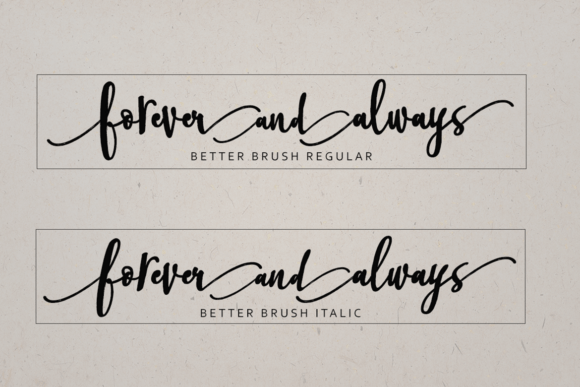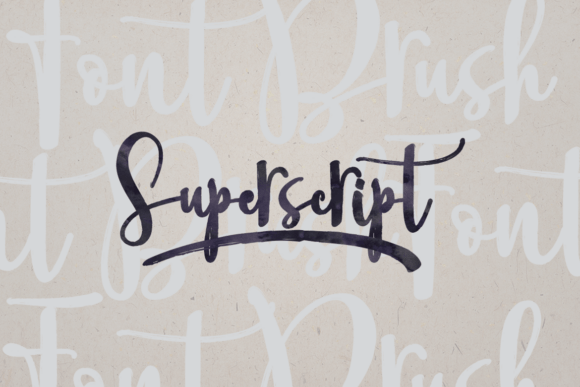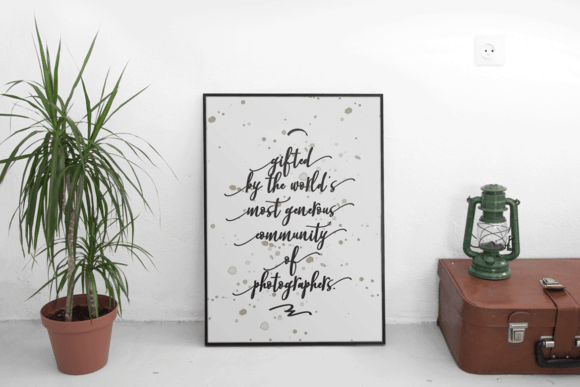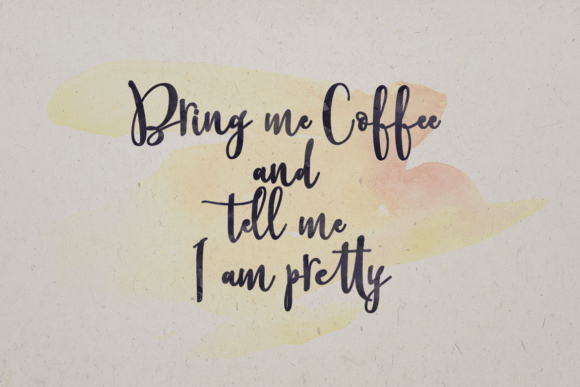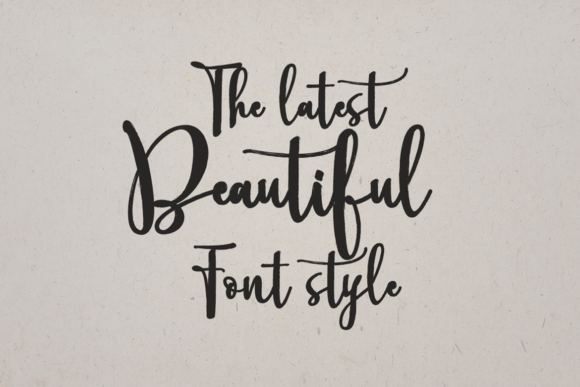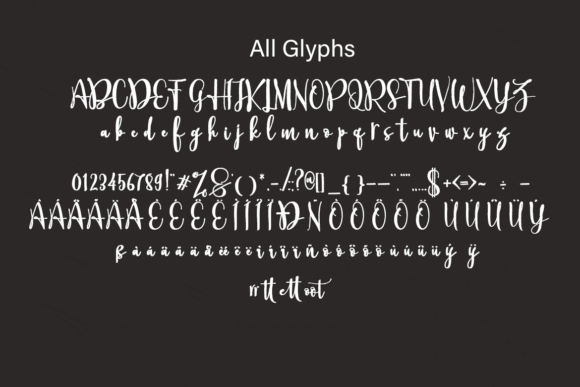
Introduction to Better Brush Font
Better Brush are tow styles of fonts, it is that the fonts brush that has a different style.
This is the perfect choice for personal branding project Can be used for various purposes.
Key Features of Better Brush Font
Why Choose Better Brush Font?